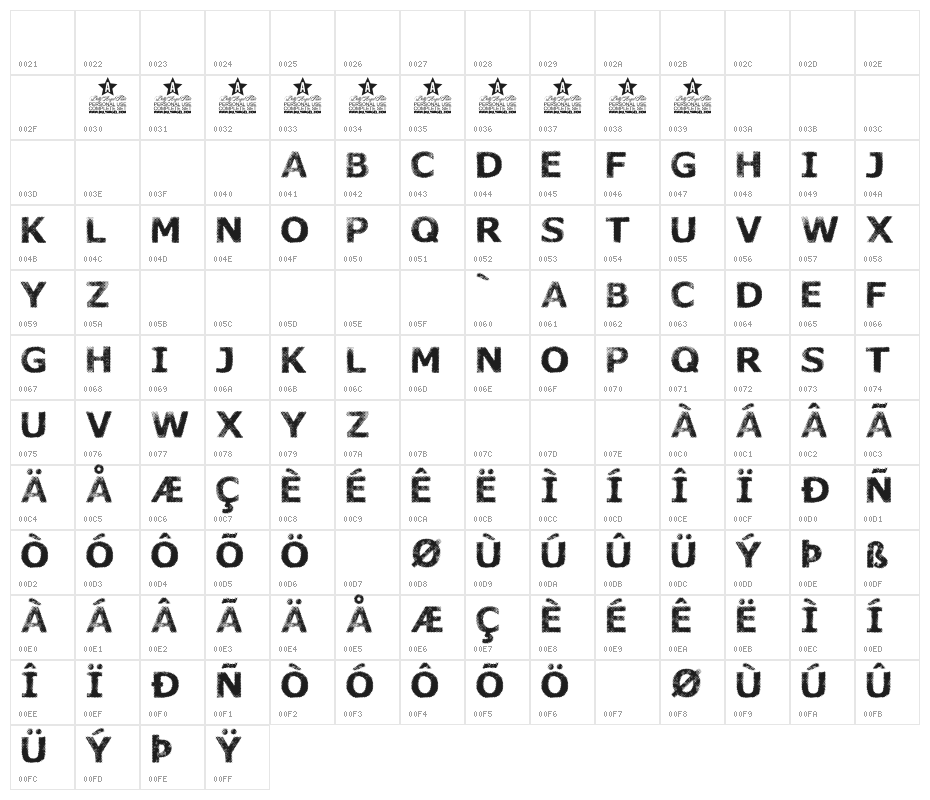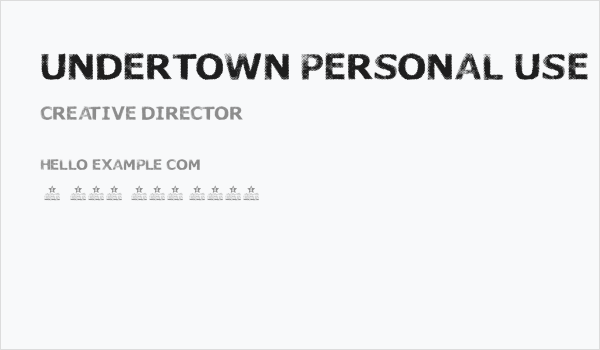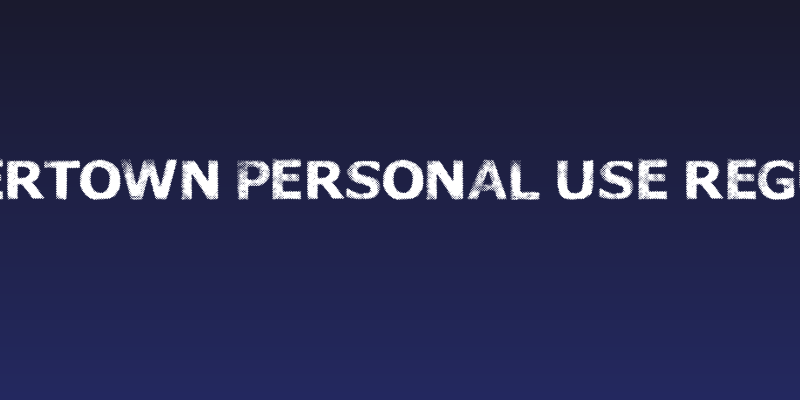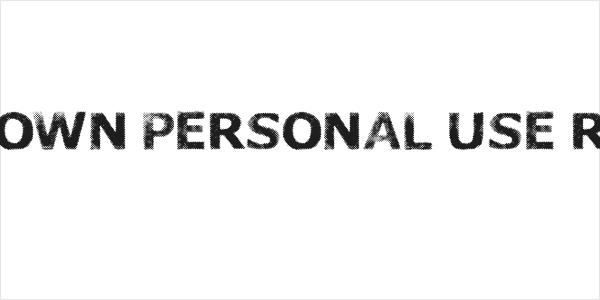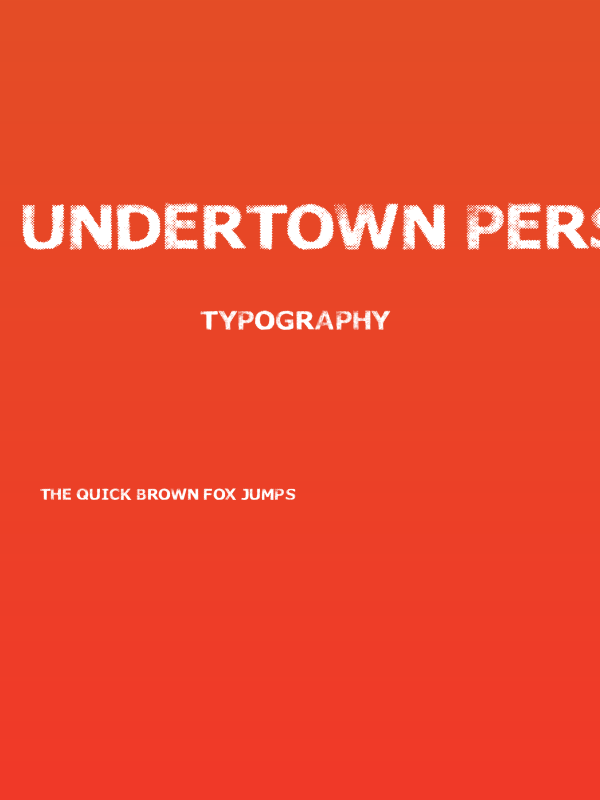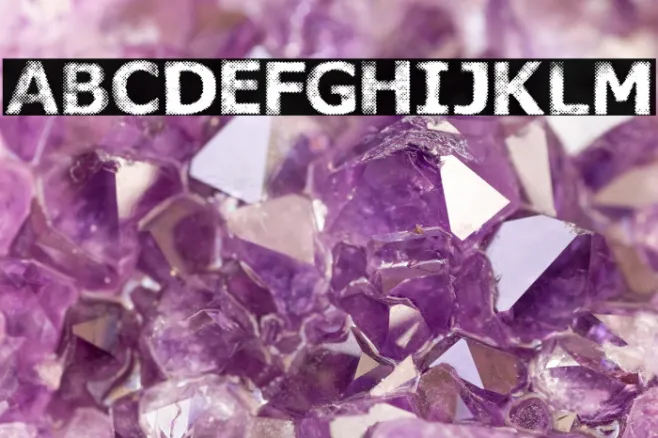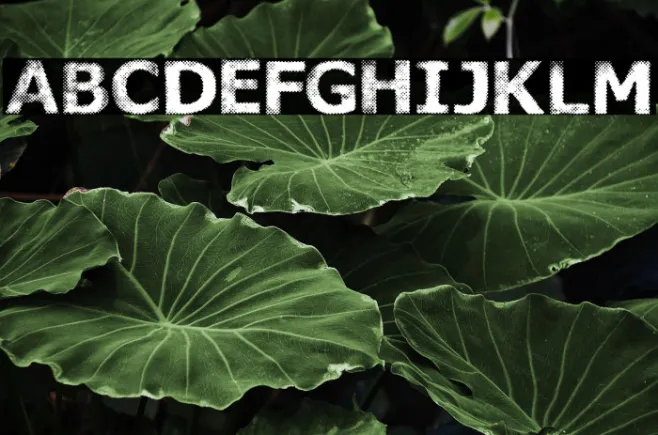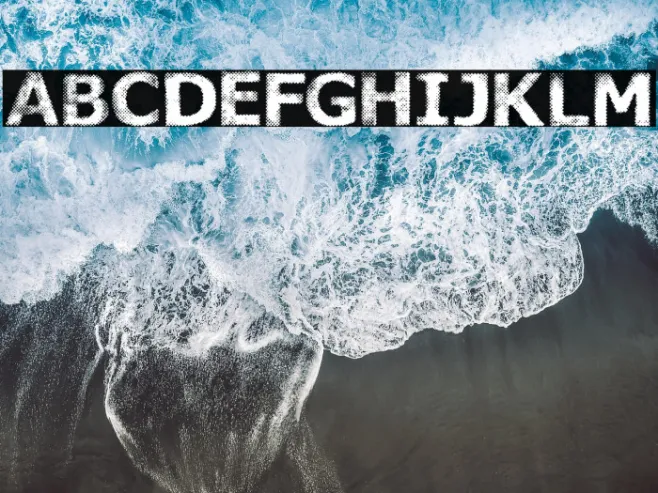
UNDERTOWN PERSONAL USE Regular Font
UNDERTOWN PERSONAL USE Regular Description
This font features a bold and impactful design with a textured, distressed appearance. The uppercase letters are uniformly bold, with a slightly rough edge that gives a vintage, worn-out feel. The characters are evenly spaced, maintaining a consistent alignment across the baseline. The texture adds a unique character, making it suitable for projects that require a rugged or industrial aesthetic. The font's boldness ensures it stands out, making it ideal for headlines or titles where attention is crucial. Its distinctive style is both eye-catching and memorable, perfect for creative designs that aim to convey strength and character.
| Proposed Projects | Ideal for posters, album covers, branding materials, and any design needing a strong, vintage look. |